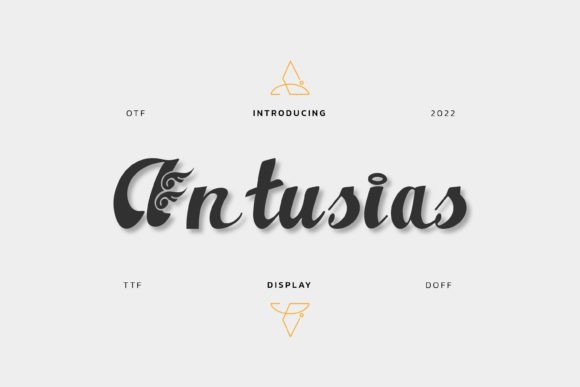
Indulge in the allure of Antusias Font, a captivating script font that will ignite your creativity and elevate your designs to new heights. Crafted with meticulous attention to detail, this font possesses the power to transform your words into captivating works of art.
Its dynamic strokes dance across the page, embodying the essence of a handwritten signature, adding a touch of personal flair to every creation. Whether you're penning heartfelt letters, designing alluring logos, or crafting eye-catching social media posts, Antusias Font will effortlessly infuse your projects with an unforgettable charm.